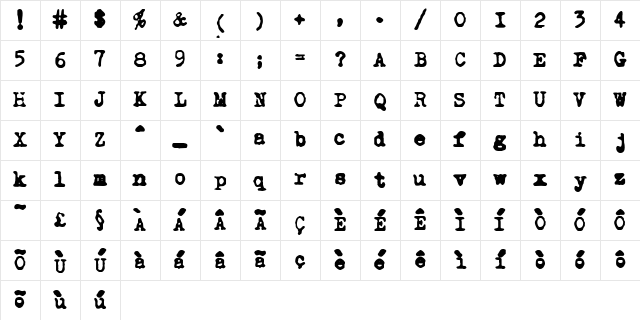
NoMore Typewriters Oh not again! Free Font
NoMore Typewriters Oh not again!
Style: Oh not again!
Design Context for NoMore Typewriters
NoMore Typewriters uses fixed-width spacing throughout, giving it the structured, systematic character associated with coding environments and technical documentation.
Pro Tip: Use NoMore Typewriters with slightly increased line-height for extended reading - fixed-width spacing can feel dense in longer passages without extra breathing room.